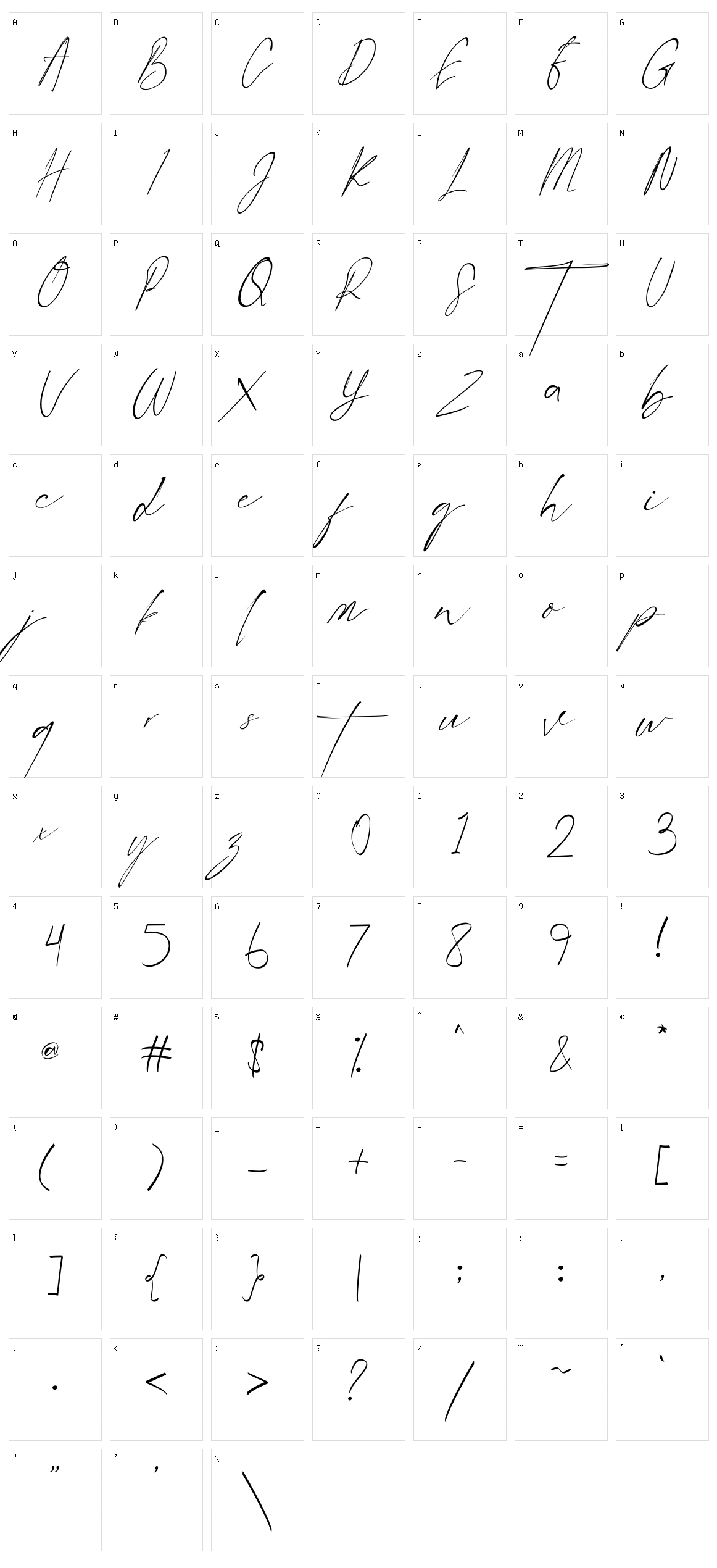
The free font Little Hampton is carefully designed by Typeline Studio, showcasing a thoughtful balance of creativity and usability and falls under the Script font style. When you download the ZIP file, it contains only 79.33 KB of font files, making it lightweight and quick to download. Please review the license details below to understand permitted usage and distribution rights. If license information is not available, we recommend using this font for personal projects only or contacting the author directly for commercial usage permissions.